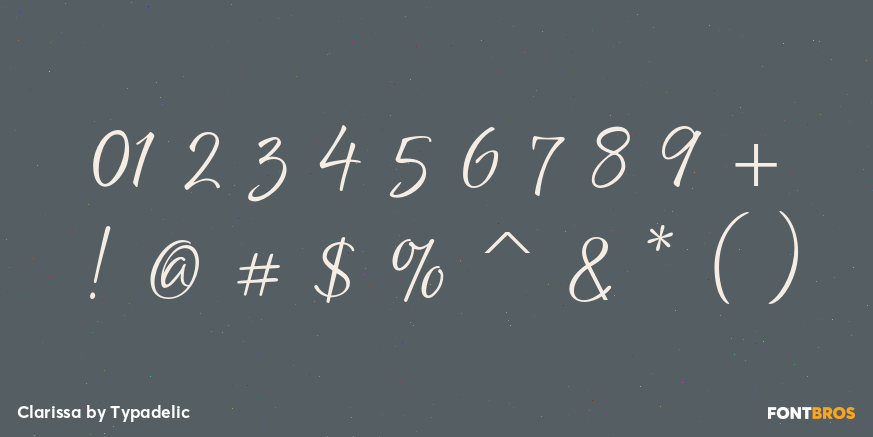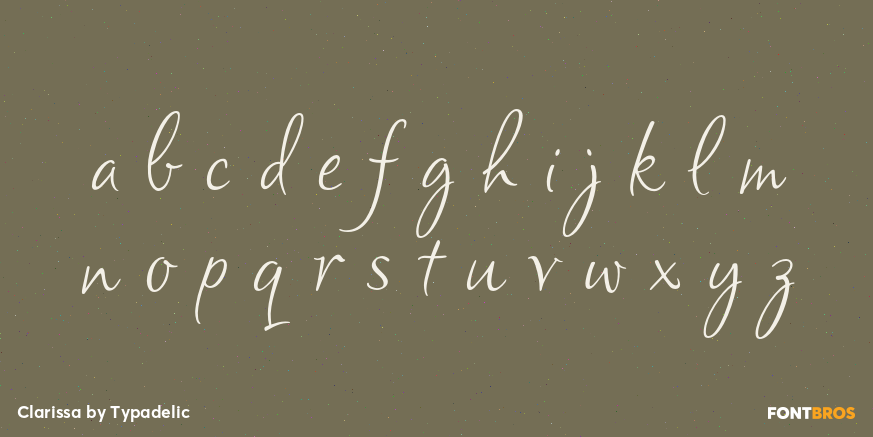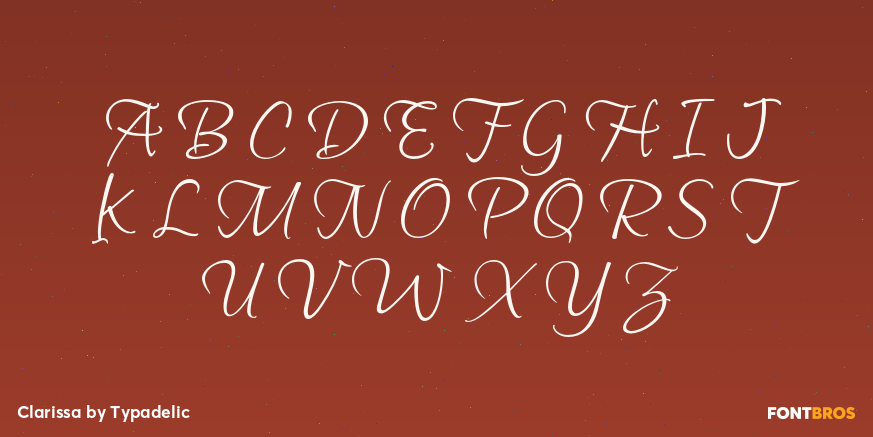
Clarissa
Font Family by Typadelic
Clarissa is a pretty handwriting typeface. The x-height of the lowercase letters are all intentionally different so the text appears to dance on the page.